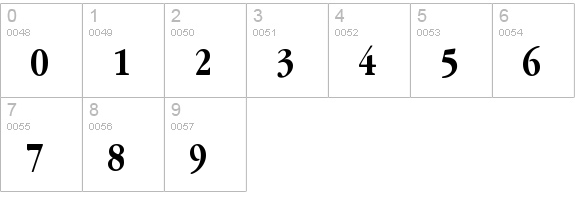
Apple Garamond Bold BT Font Details
Apple Garamond Bold BT is a timeless and elegant typeface that exudes sophistication and charm. With its bold and striking design, this font is perfect for creating eye-catching headlines, titles, and logos. The clean lines and classic look of Apple Garamond Bold BT make it suitable for a wide range of design projects, from print materials to digital content. What's even better is that Apple Garamond Bold BT is available for free download at FontsMarket.com. This means you can easily access this beautiful font and incorporate it into your designs without any cost. Whether you're a professional designer or just looking to add a touch of style to your projects, Apple Garamond Bold BT is a versatile and attractive option that won't break the bank. Download it today and elevate your designs with this exquisite typeface.